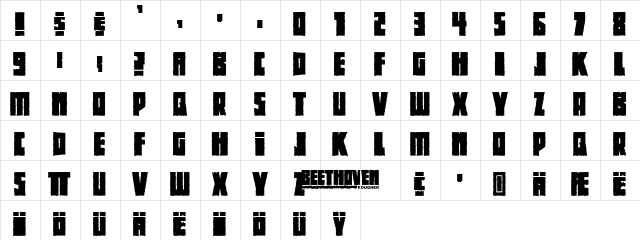
Complete BeethovenRougher Regular glyph index. Displaying only characters natively supported by BeethovenRougher Regular font.
BeethovenRougher embraces imperfection - its rough, textured character adds raw authenticity to designs that want to feel lived-in and unconventional.
Pro Tip: Use BeethovenRougher at larger sizes where the texture and irregularity of each letterform can be clearly seen - it loses its character at small sizes.